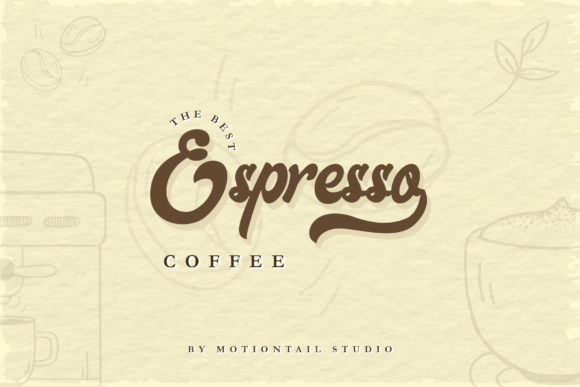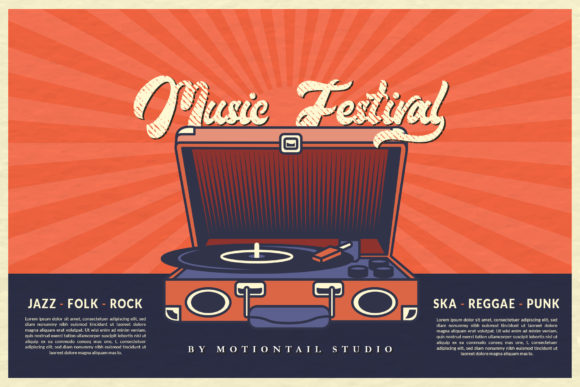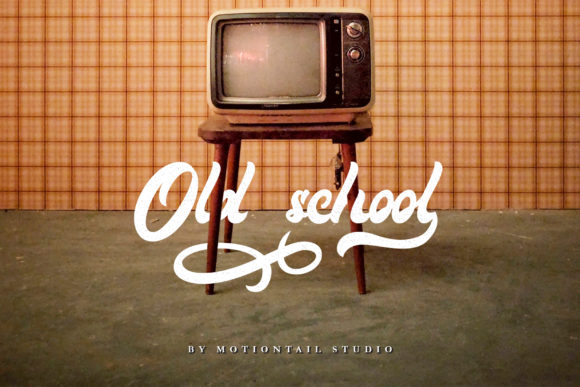
Introduction to Maimoonde Font
You’ve spent hours pouring your heart and soul into a creative project, and finally, it’s time to add the finishing touches. The perfect font can make all the difference in elevating your design from good to great. That’s where the Maimoonde Font comes in – a stunning, vintage-styled cursive handwritten font that’s sure to impress.
With its elegant and stylish design, the Maimoonde Font is a valuable resource for designers looking to add a touch of sophistication to their work. Its PUA encoding allows for easy access to all of its glyphs and swashes, making it a breeze to customize and use. Whether you’re working on a high-quality design project or simply need a unique font for a creative idea, the Maimoonde Font is a must-have design resource.
Key Features of Maimoonde Font
- High-quality design with a unique, hand-drawn style, perfect for creative projects.
- Features a large character set, including international characters and symbols, making it suitable for a wide range of creative projects.
Honest Review: Maimoonde Font
I recently stumbled upon the Maimoonde Font and I must say, it’s a great addition to any designer’s toolkit. As a designer, I’m always on the lookout for high quality fonts that can elevate my creative projects. The Maimoonde Font does just that.
Here are some of the font’s key features:
- High-quality design: The Maimoonde Font is meticulously crafted to provide a professional look and feel.
- Limited character set: The font may not support all languages or character sets.
- Not suitable for small text: The font may not be the best choice for small text due to its bold and stylized design.
Overall, the Maimoonde Font is a great design resource for designers working on creative projects. While it may have some limitations, its high-quality design and free download make it a valuable addition to any designer’s toolkit. ✨
The Maimoonde Font is commonly used in creative projects such as logo designs, infographics, and presentations. Its high quality and unique design make it an excellent choice for designers looking to add a touch of sophistication to their work.